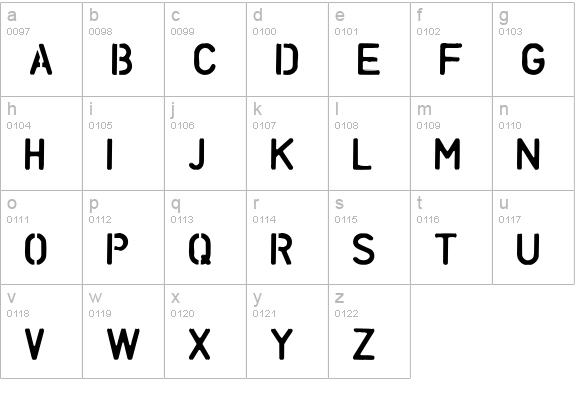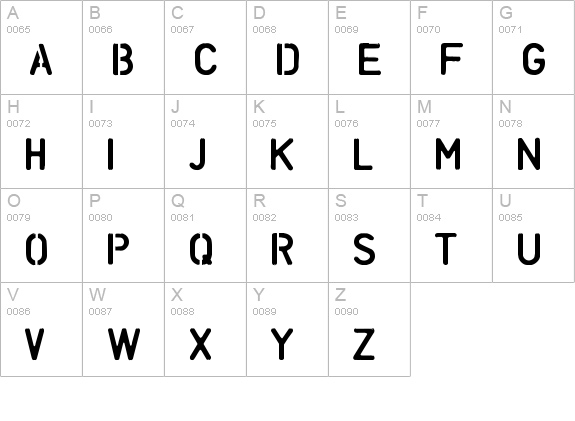
UNCONFORM ROUND is a unique and captivating font that breaks the mold and challenges conventional design norms. With its bold and unconventional letterforms, this font exudes a sense of rebellion and nonconformity. Every character in UNCONFORM ROUND is meticulously crafted, allowing for a seamless flow and a distinct visual impact. Its rounded edges give it a soft and approachable aesthetic, combining the perfect balance of playfulness and professionalism. Whether you're using UNCONFORM ROUND for logos, headlines, posters, or any other creative project, it will effortlessly catch the eye and make a lasting impression. Its versatility makes it suitable for a wide range of design styles, from modern and edgy to retro and vintage. The best part? UNCONFORM ROUND is completely free! It is available to download at FontsMarket.com, making it accessible to anyone in need of a standout font without breaking the bank. So why conform to the ordinary when you can embrace the unconventional? Download UNCONFORM ROUND today and let your designs break free from the norm.